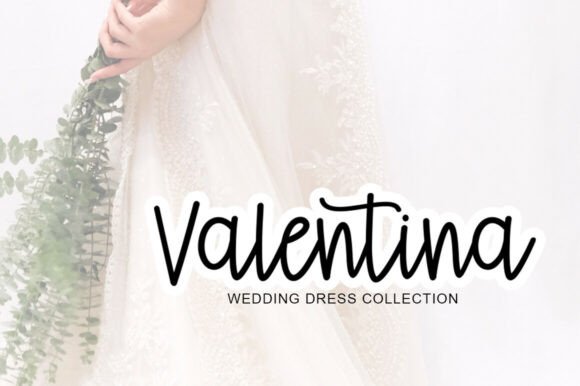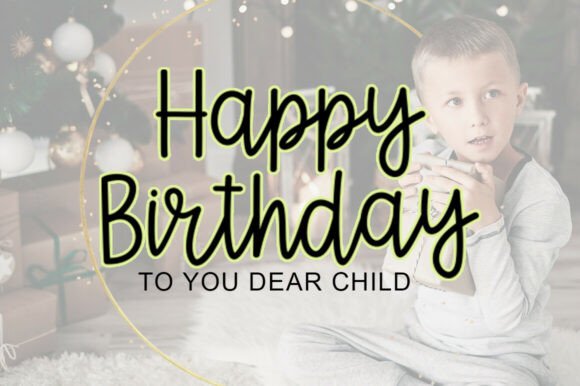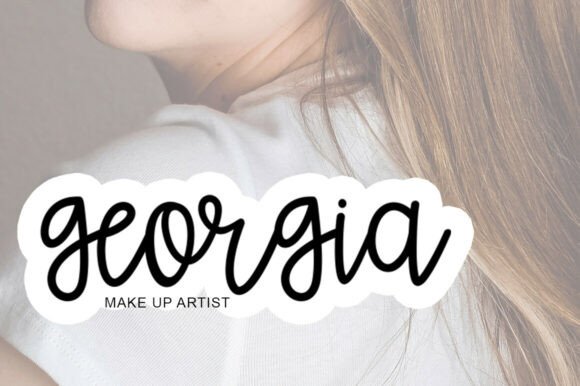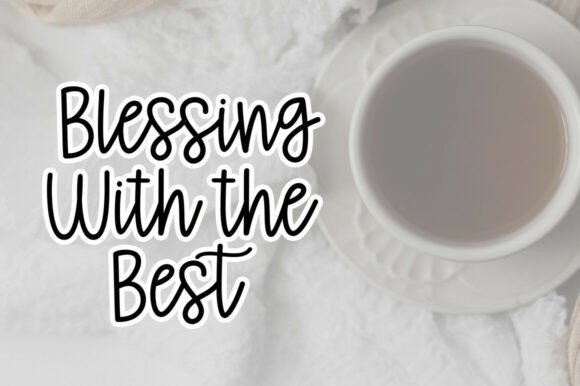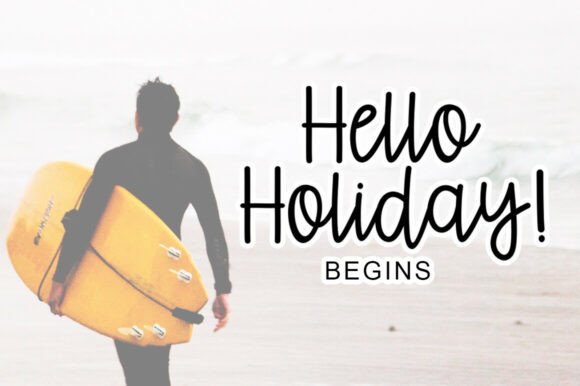
Introduction to Singer Script Font
“Singer” is a modern script font that combines a stylish and elegant handwritten look with smooth curves and a natural flow.
Its thick, playful strokes and soft outline give it a bold yet friendly appearance, making it perfect for branding, quotes, social media posts, invitations, and lifestyle-themed designs The font’s contemporary style creates a casual, creative, and expressive tone suitable for both digital and print applications.
Key Features of Singer Script Font